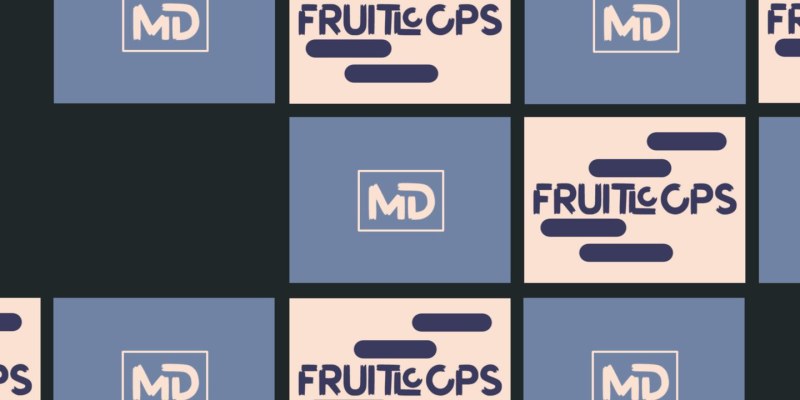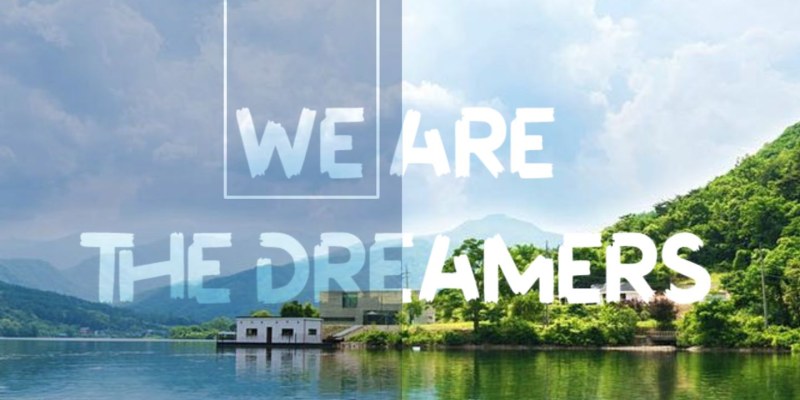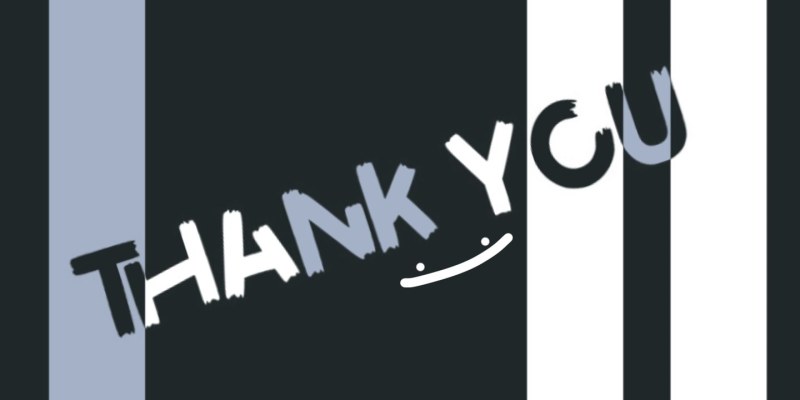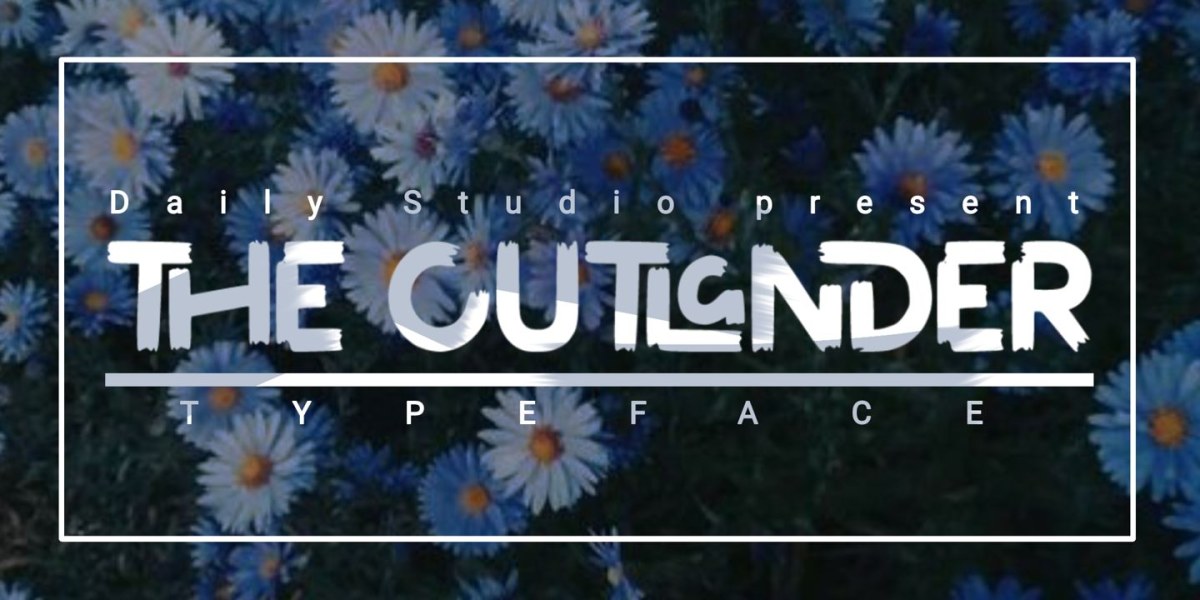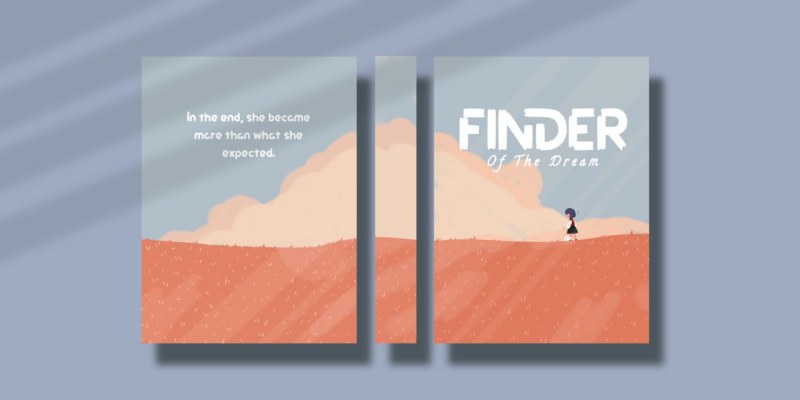
The Outlander Font
The Outlander – Design by Daily Studio. This typeface can make your design look strong. Simple accessible on any of for projects. Is great for headers, logos, and quotes. Comes with a full uppercase, lowercase, punctuation, and standard multilingual support. With 255 glyphs and in OTF format.
The Outlander Font is a Typeface font that brings a professional and versatile look to your projects. The Outlander – Design by Daily Studio.